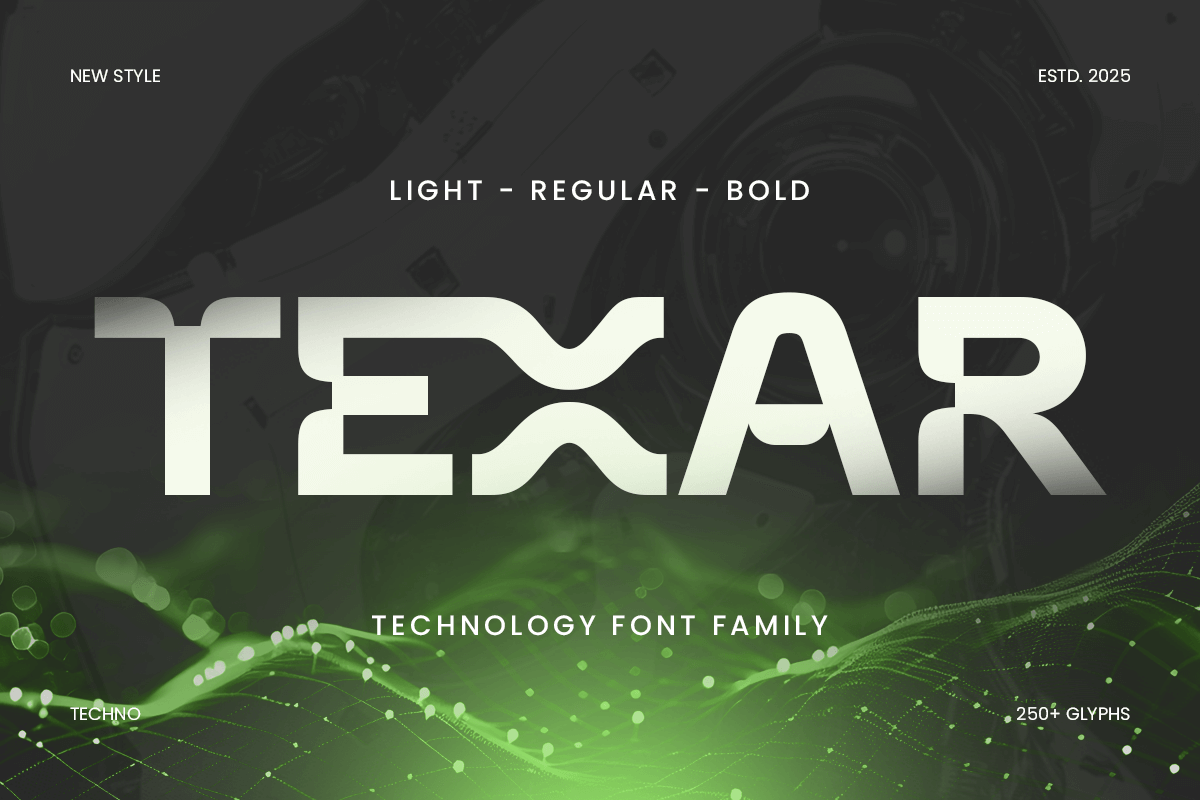
Texar
-Technology Font Family
Texar - Technology Font Family
TEXAR is a technology font family designed to meet the needs of modern digital design. With its clean lines, geometric precision, and high-tech appeal, TEXAR offers a versatile type system that is perfect for everything from tech branding to UI/UX interfaces.
This font family includes a variety of weights and styles, allowing you to create a consistent visual language across different digital and print platforms. Whether you're designing a cutting-edge website, a tech product, or a corporate logo, TEXAR brings clarity, modernity, and innovation to your brand identity.
The sleek and minimalist design ensures maximum readability, while the bold geometric forms give TEXAR a strong, futuristic presence that works perfectly for any technology-focused project.
TEXAR – Technology Font Family Features
• Versatile font family with multiple weights and styles
• Ready with 3 Weights: Light, Regular, Bold
• Ideal for digital design, tech branding, and UI/UX applications
• Clean, sleek, and modern design
• OpenType features (Alternate & Ligature) for enhanced typographic flexibility
Elevate your digital projects with TEXAR – the ultimate font family for modern technology and design.